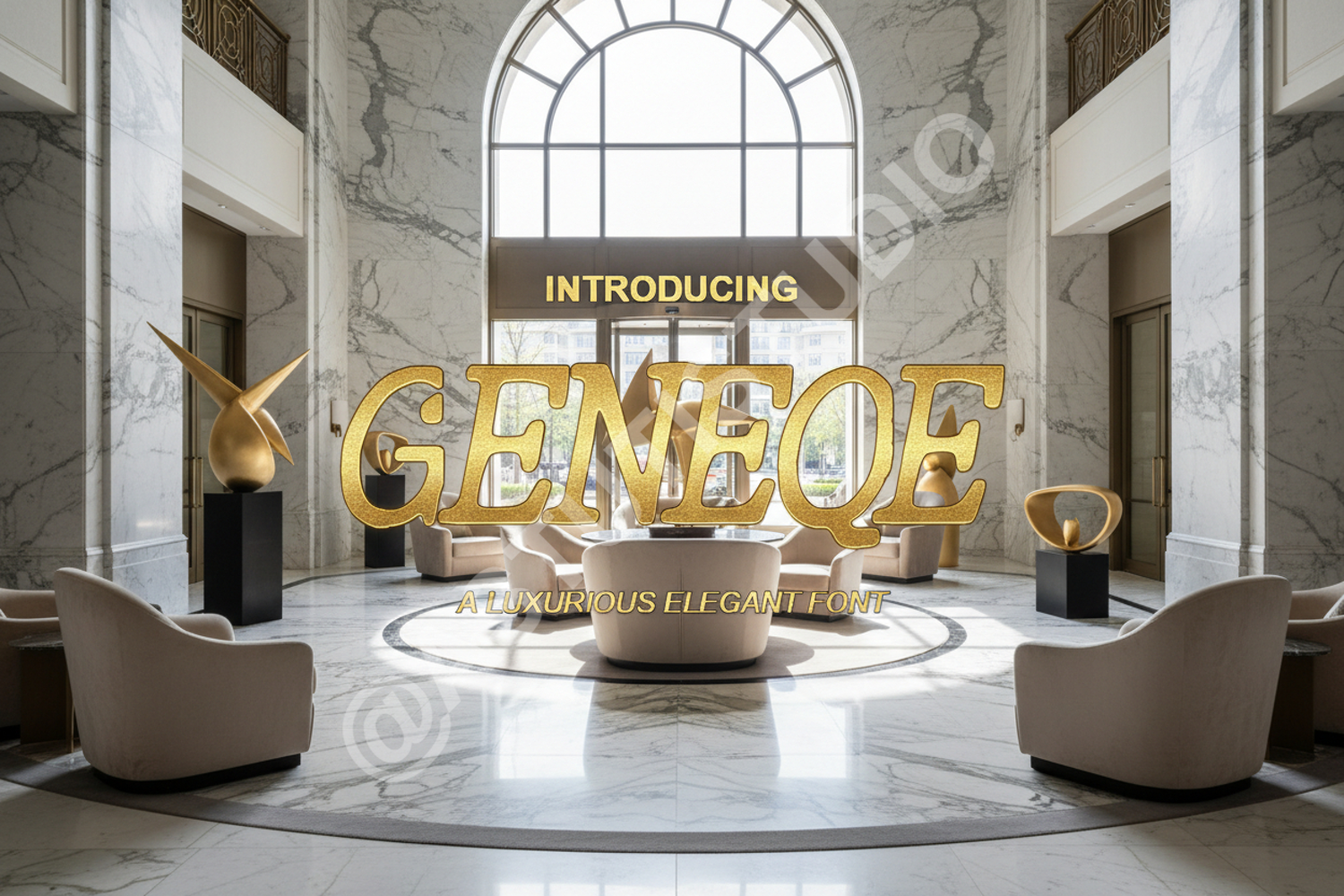
Geneqe - Modern Sophisticated Serif Typeface
Geneqe
Experience the perfect blend of contemporary style and timeless elegance with Geneqe. This premium serif font has been meticulously crafted to provide a sophisticated aesthetic that elevates any design. Whether you are working on a high-end fashion magazine or a minimalist corporate identity, Geneqe offers the versatility and refinement required for professional results.